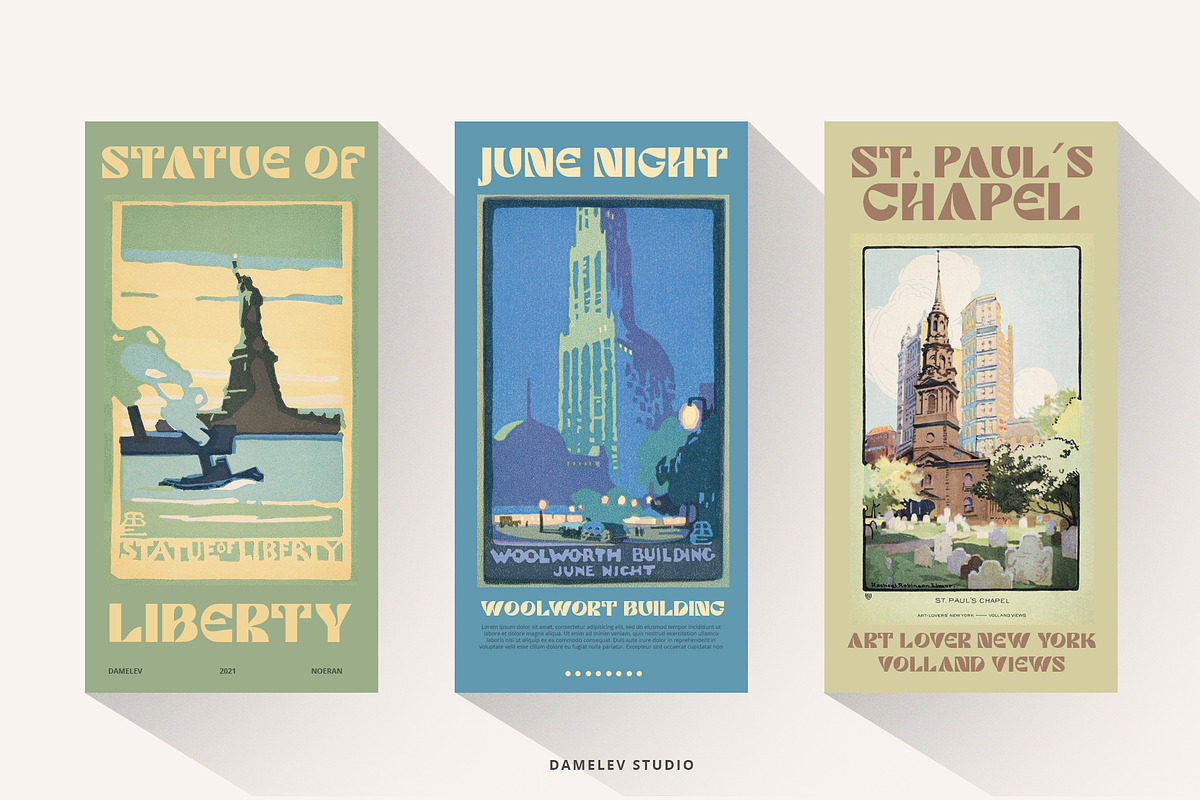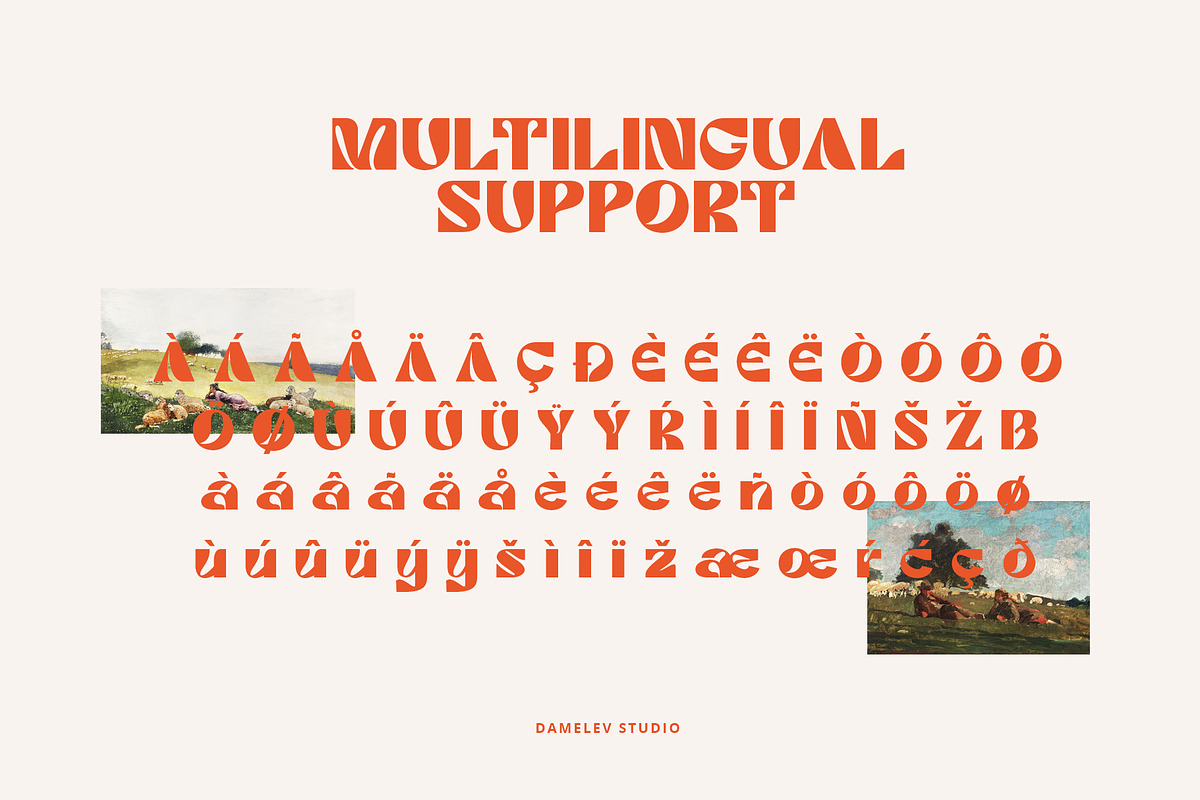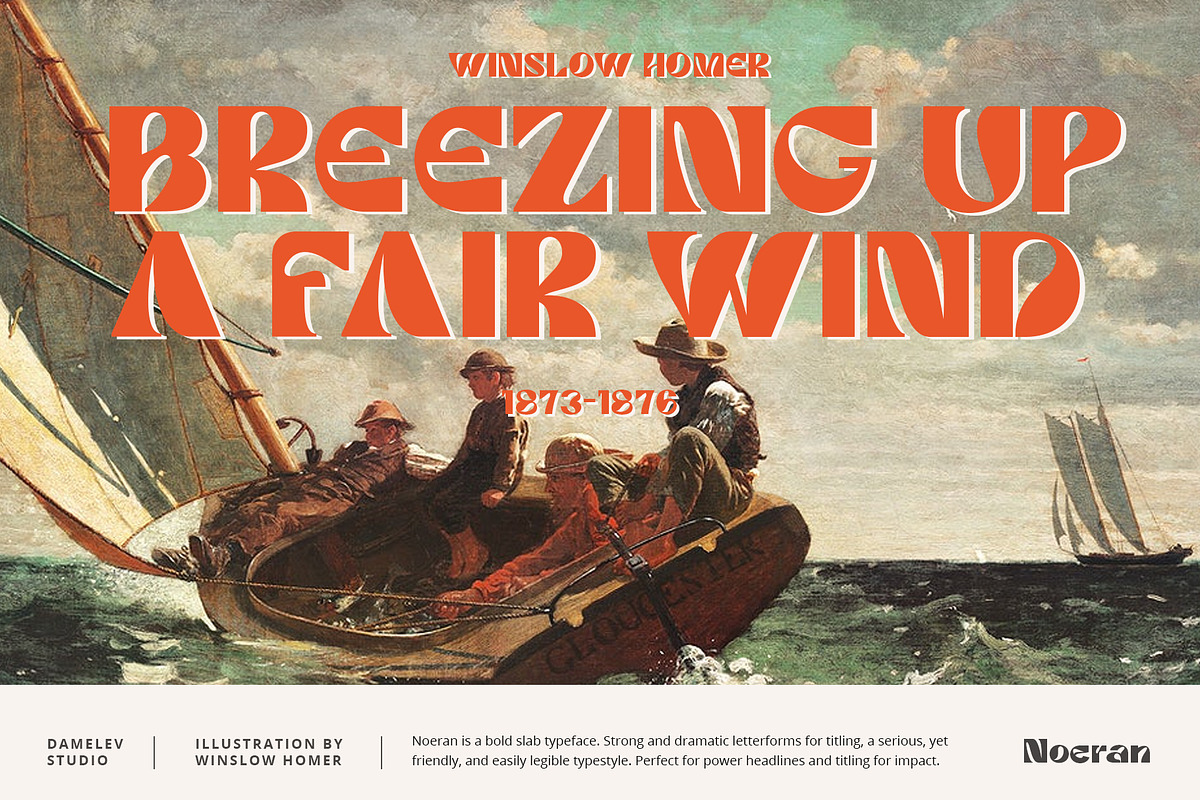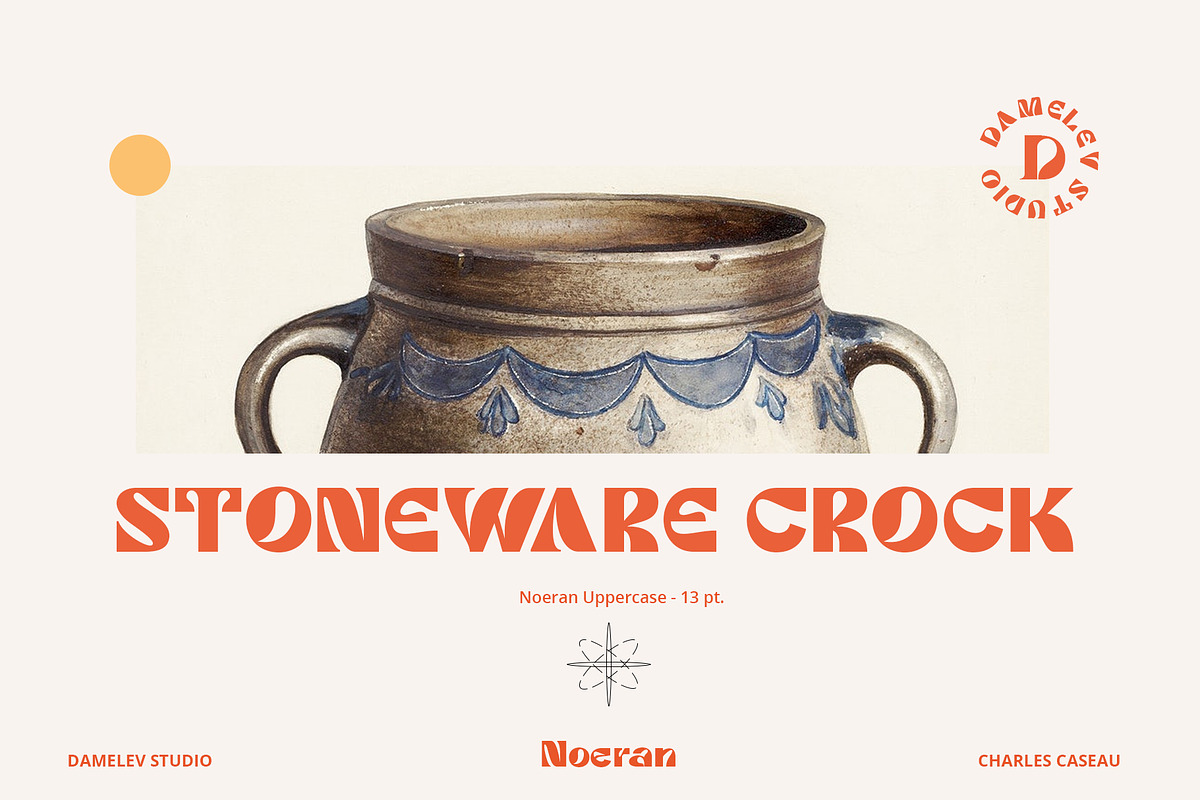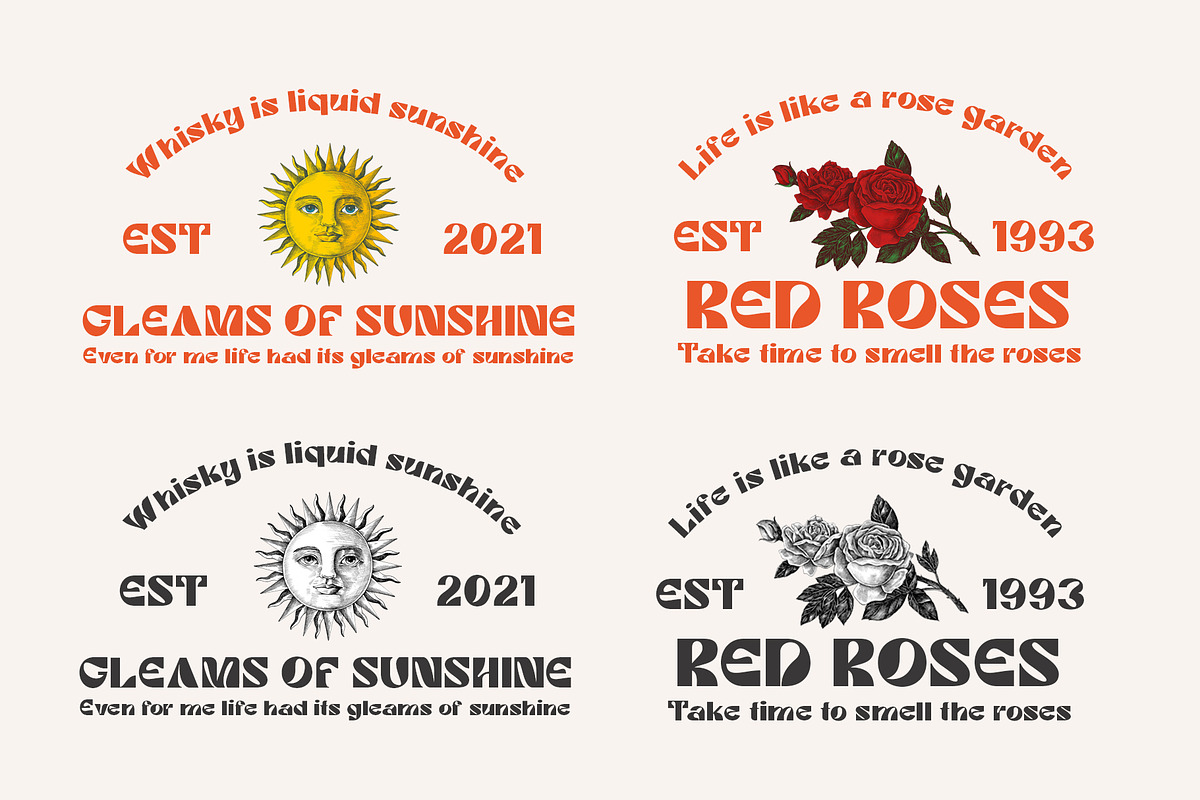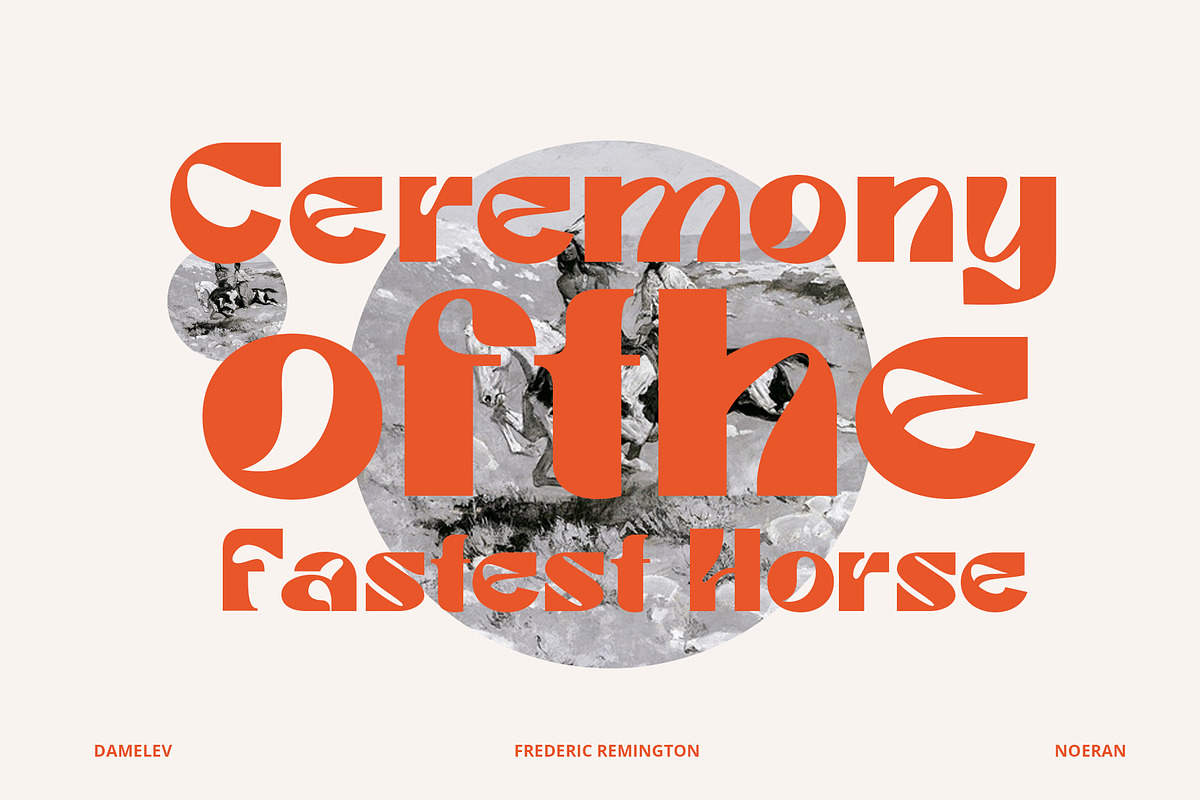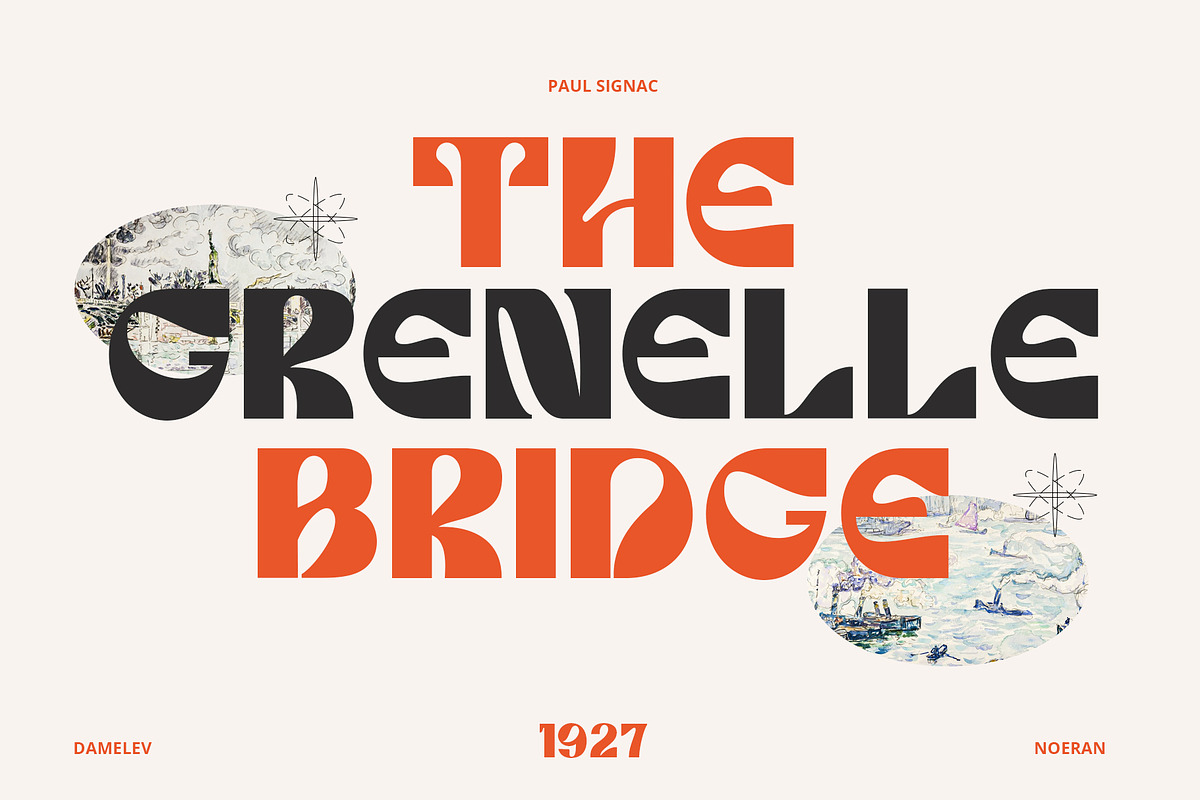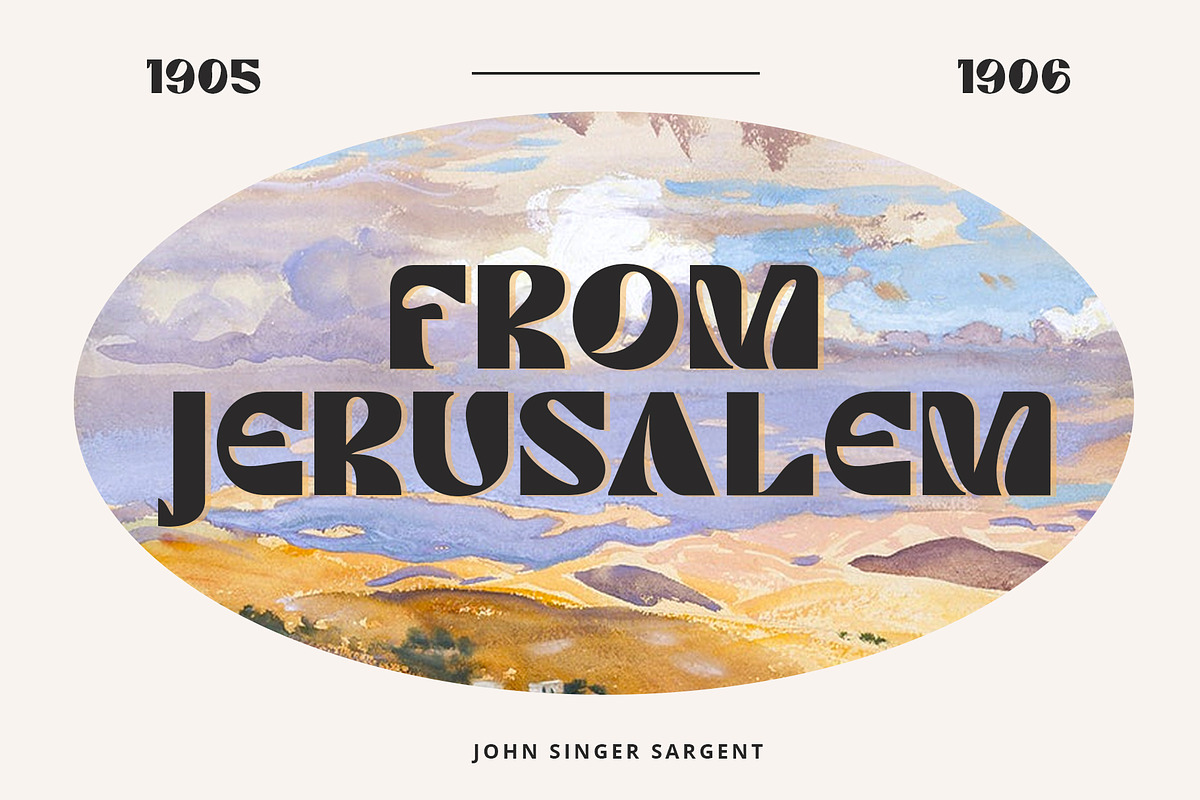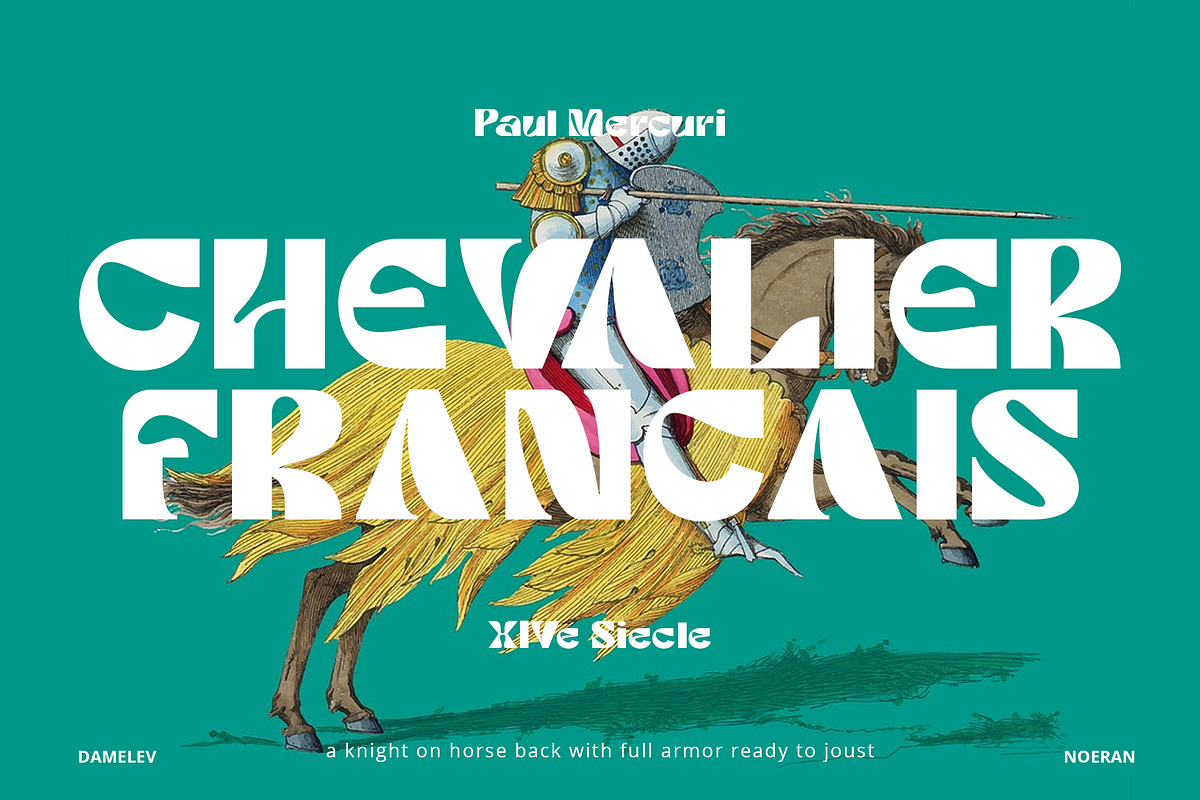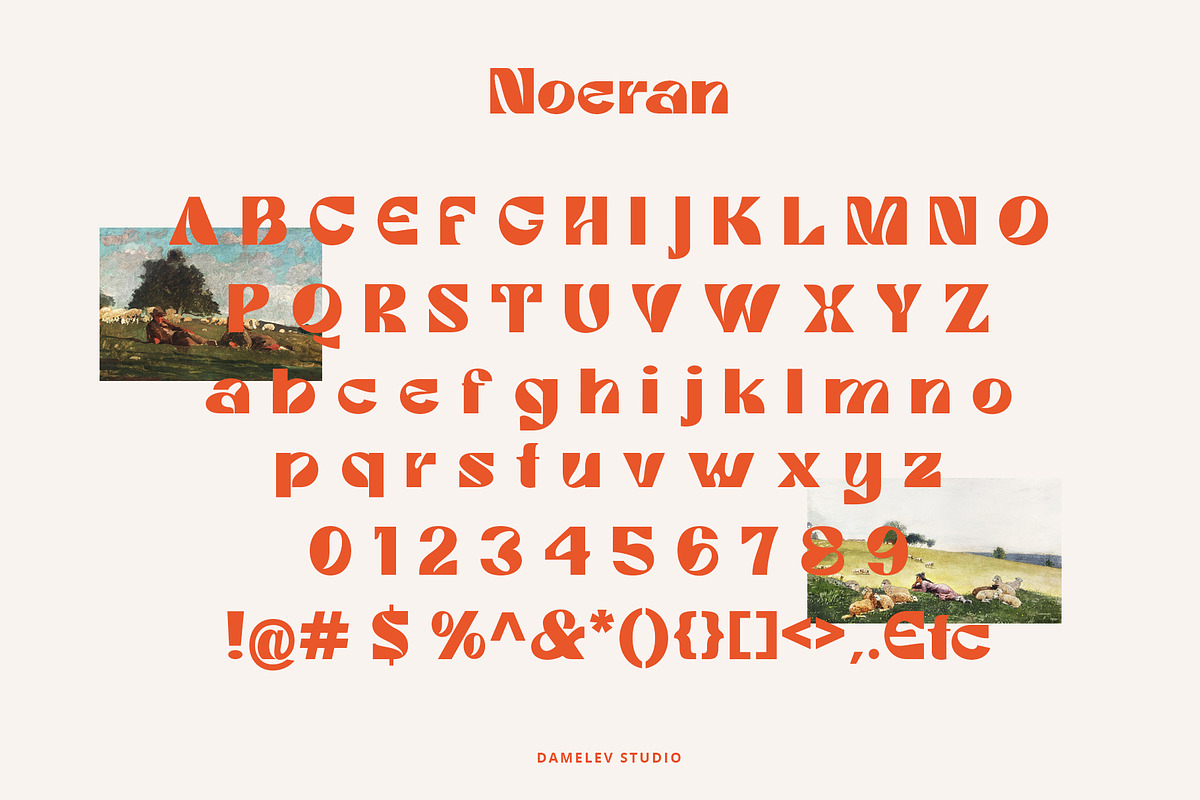
Noeran
Noeran is a bold slab typeface. Strong and dramatic letterforms for titling, a serious, yet friendly, and easily legible typestyle. Perfect for power headlines and titling for impact.
It works perfectly for creative project such as logo, T-shirt / apparel, badge, invitation, packaging,headline, poster, magazine, greeting card, and wedding invitation. You can access the open type features and multilingual on mostly Adobe programs, such as Adobe Indesign, Adobe Illustrator, Adobe photoshop etc.